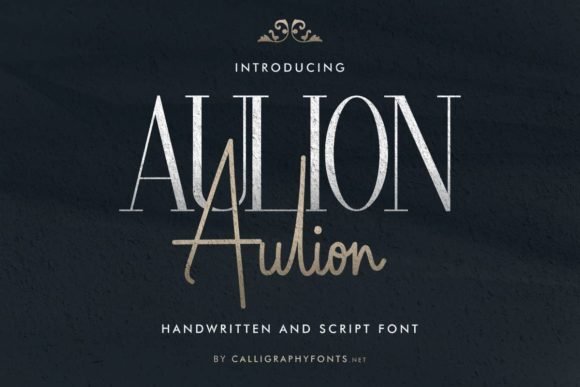
Introduction to Aulion Font
Aulion is a beautiful and glamorous duo font (serif and handwritten).
Incredibly versatile, this font fits a wide pool of designs, elevating them to the highest levels Add this elegant font to your favorite creative ideas and notice how it makes them come alive.